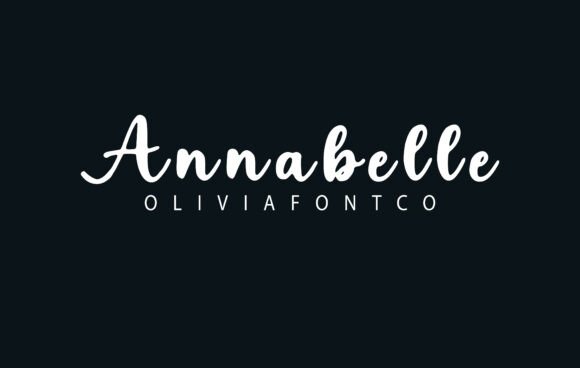
The Annabelle Font: A Romantic Touch for Your Creative Projects
I’ll never forget the time I was working on a wedding invitation design project, and my client asked me to create a custom font that would match the romantic and elegant vibe of their special day. I spent hours scouring the internet for the perfect font, but nothing seemed quite right. That’s when I stumbled upon the Annabelle font, and it instantly became my go-to choice. In this article, I’ll share with you why I fell in love with this beautiful handwritten font and how you can make the most of it in your creative projects.
A Personal Review of Annabelle Font
The Annabelle font is an authentic handwritten font with a romantic touch that’s perfect for a wide range of design projects. Here’s what I love about it:
- ✨ Legibility: The Annabelle font is incredibly legible, making it perfect for both title and body text.
- ✅ Romantic touch: The font’s handwritten style adds a touch of elegance and sophistication to any design.
- 💕 Versatility: The Annabelle font is suitable for a wide range of design projects, from magazine headlines to social media graphics, branding, wedding invitations, and more.
While the Annabelle font is amazing, it’s not perfect. Here are a few small quirks to keep in mind:
- 🤔 Limited character set: The Annabelle font may not have an extensive character set, which can limit its use in certain projects.
- ⚠️ Not suitable for body text: While the font is legible, it may not be the best choice for long blocks of body text due to its decorative nature.
One of the best things about the Annabelle font is its OpenType features and glyphs. These features allow you to customize your text and add unique touches to your design. Here are a few tips for exploring OpenType features and glyphs:
- Experiment with Stylistic Alternates to create unique variations of the font.
- Use Ligatures to create beautiful connections between letters.
The Backstory of Annabelle Font
The Annabelle font was designed with love and care by a talented type designer who wanted to create a font that would capture the essence of romantic and elegant designs. The font’s inspiration comes from classic handwritten scripts, with a modern twist that makes it perfect for contemporary designs.
| What is the Annabelle font? | The Annabelle font is a beautiful handwritten font with a romantic touch, perfect for a wide range of design projects. |
| Is the Annabelle font legible? | Yes, the Annabelle font is incredibly legible, making it perfect for both title and body text. |